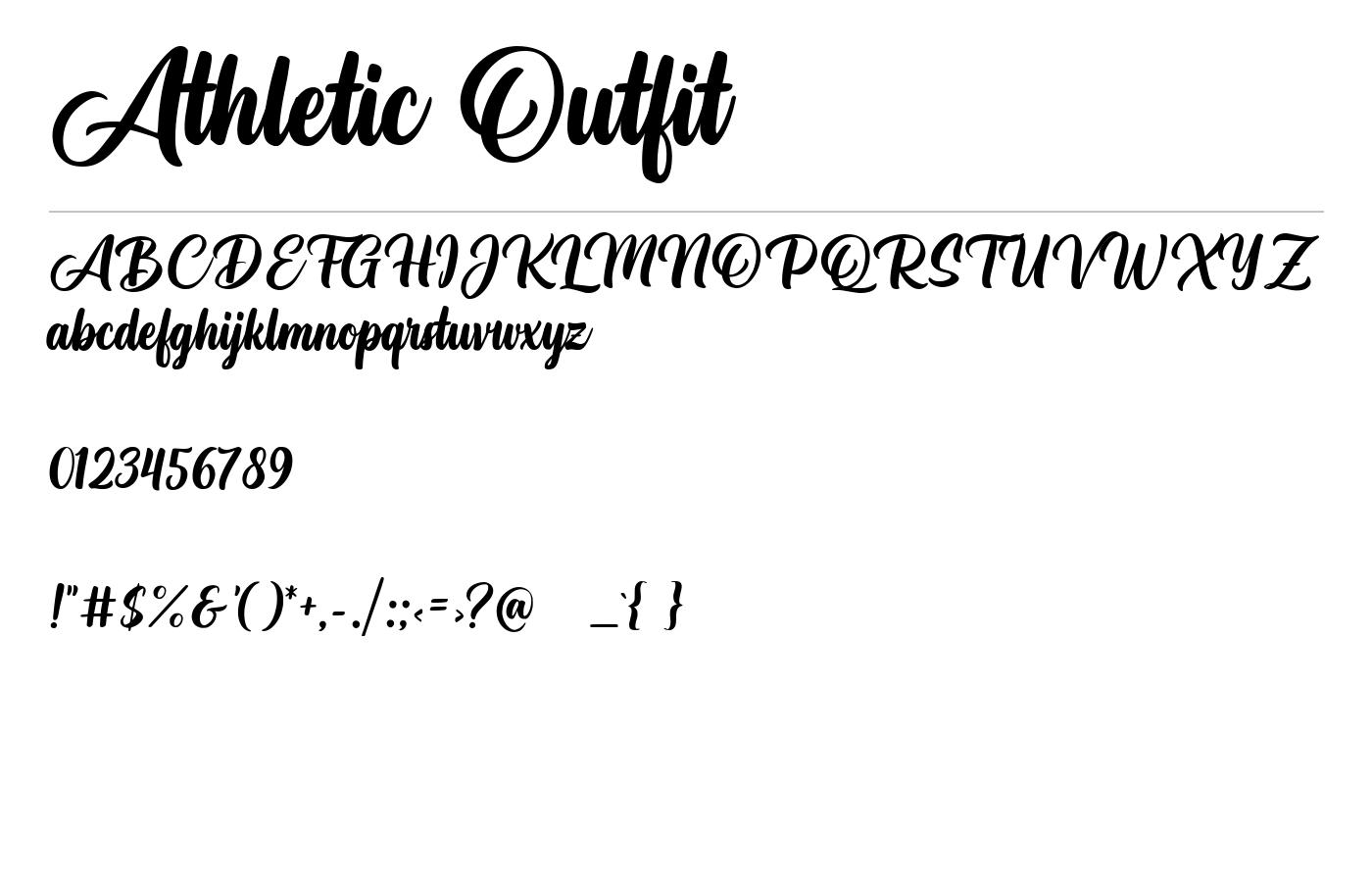
Athletic Outfit is a bold, script-style font characterized by its flowing, brush-like strokes and high contrast between thick and thin lines, giving it an energetic and dynamic feel. Its elegant curves and slightly condensed letterforms make it perfect for sporty, casual, or vintage-inspired branding, ideal for logos, headlines, and packaging that seek a stylish yet approachable personality. This font adds a lively and personal touch to designs, making it well-suited for athletic wear, lifestyle brands, and creative editorial projects.
Athletic Outfit Font
About Athletic Outfit Font